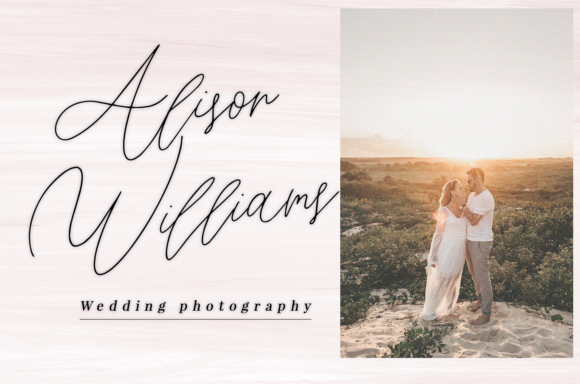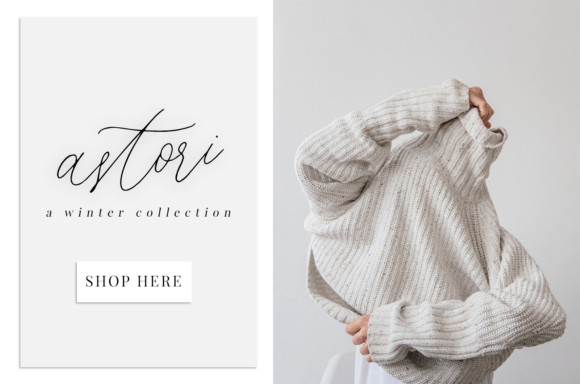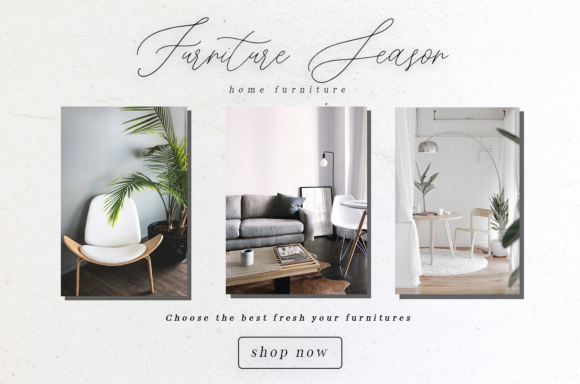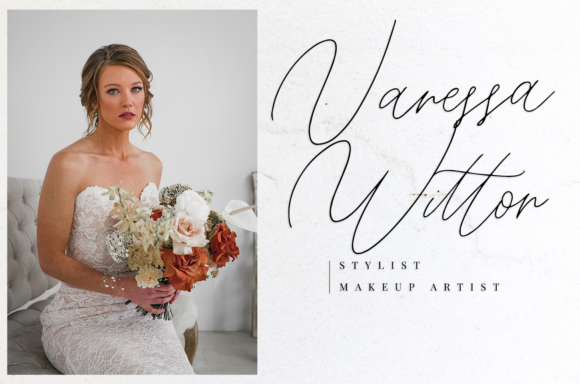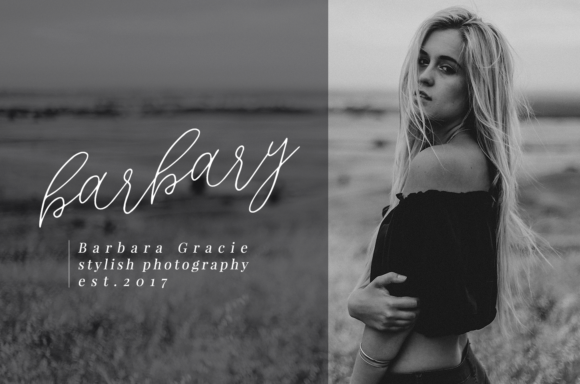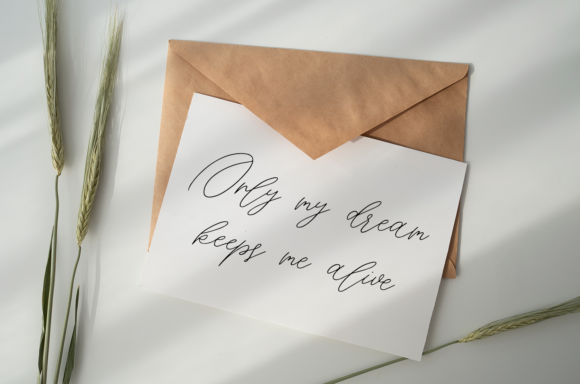
Unleashing Your Inner Creativity with Finuttella Font
Have you ever been in a moment where a burst of creativity strikes, and you can’t wait to bring your ideas to life? For many of us, that spark comes from a simple DIY project – a handmade card, a customized gift, or even a social media post. It’s in these moments that we need the perfect font to elevate our creations and make them truly special.
Enter the Finuttella Font – a gorgeous, unique handwritten font that exudes an incredibly friendly feel. This charming font is designed to add a personal touch to your projects, making them stand out from the crowd. Whether you’re a seasoned designer or a crafting enthusiast, Finuttella Font is the perfect tool to bring your ideas to life. With its versatility and charm, it’s no wonder designers are falling in love with this font.
So why is Finuttella Font so valuable for designers? Its unique, handwritten style allows for endless creative possibilities, making it an ideal choice for any DIY project. From greeting cards to wedding invitations, Finuttella Font is sure to add a touch of personality and warmth to your creations.
Finuttella Font Key Features
- Unique Characteristics: Finuttella Font features a unique, playful design with a mix of modern and vintage elements, making it perfect for creating eye-catching headings and titles.
Finuttella Font Review
Overall, I’d say Finuttella Font is an interesting choice for designers looking to add a touch of elegance to their projects. ✨ Here are some things that work well:
- Finuttella’s unique blend of script and serif elements creates a sophisticated, high-end feel.
- The font’s subtle flair and flair-like curves make it perfect for branding, logos, and luxury product packaging.
- It’s highly legible, even at smaller font sizes, which is a major plus for designers who need to convey complex information.
However, there are some limitations to consider: ⚠️
- The font may be too ornate for certain projects, particularly those that require a more straightforward or minimalist approach.
- It’s not ideal for body text or large blocks of text, as it can become overwhelming and difficult to read.
- The font’s complex structure may make it challenging to use in certain software or formatting situations.
In my opinion, Finuttella Font is a solid choice for designers who want to add a touch of sophistication and elegance to their projects. While it may not be suitable for every project, it’s definitely worth considering for those that require a high-end feel.
Finuttella Font is ideal for creative and artistic projects, such as:
- Designing greeting cards and invitations
- Creating social media graphics and posters
- Illustrating children’s books and educational materials